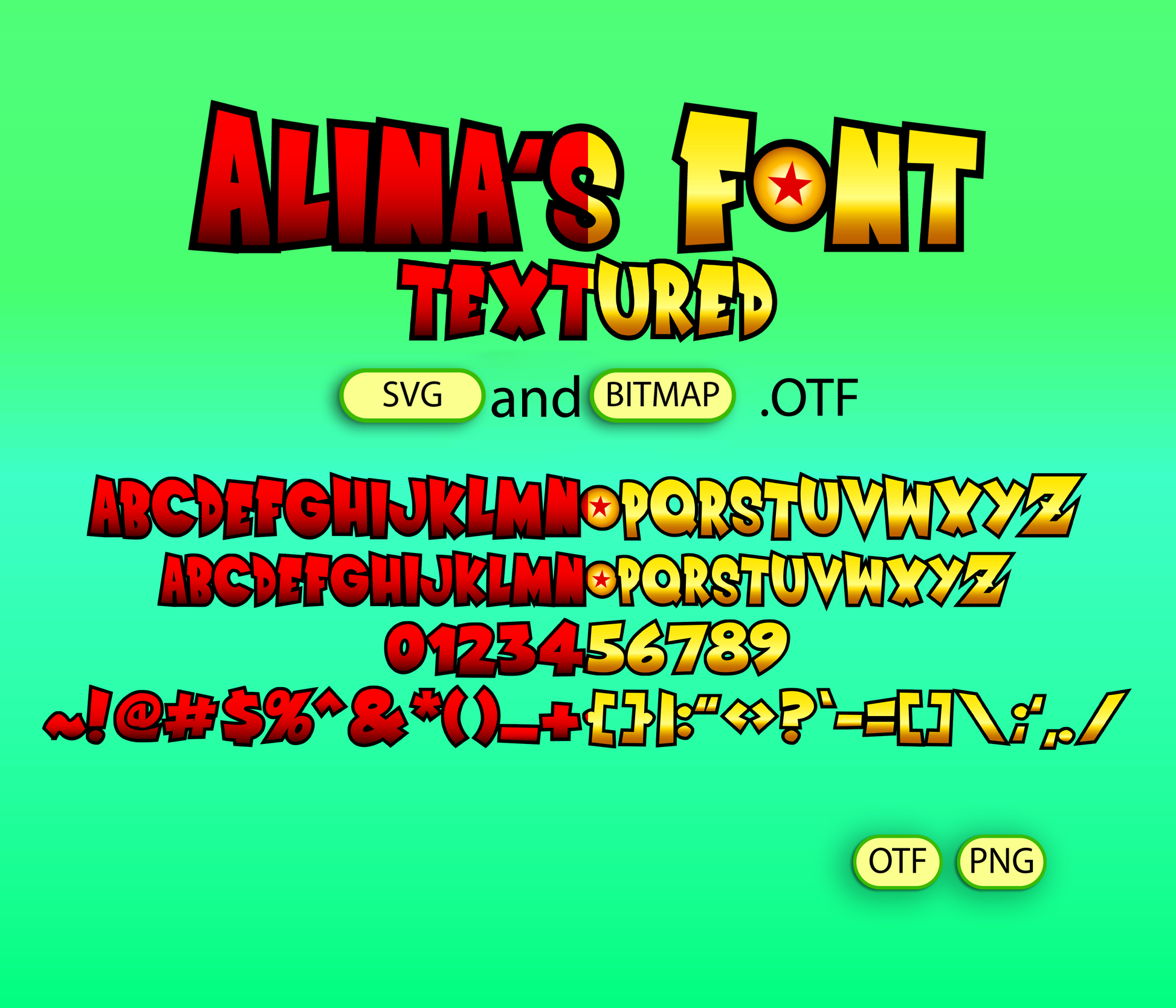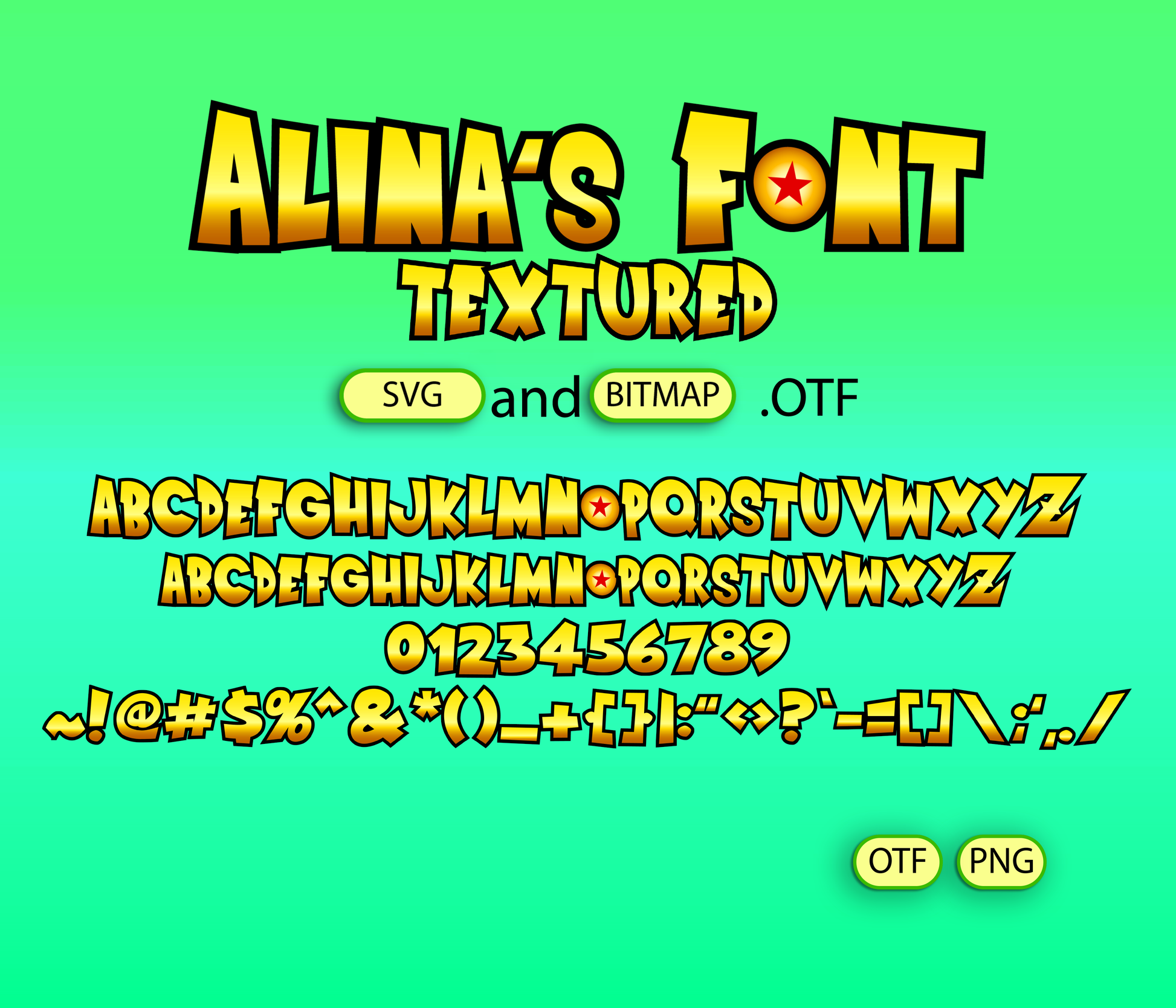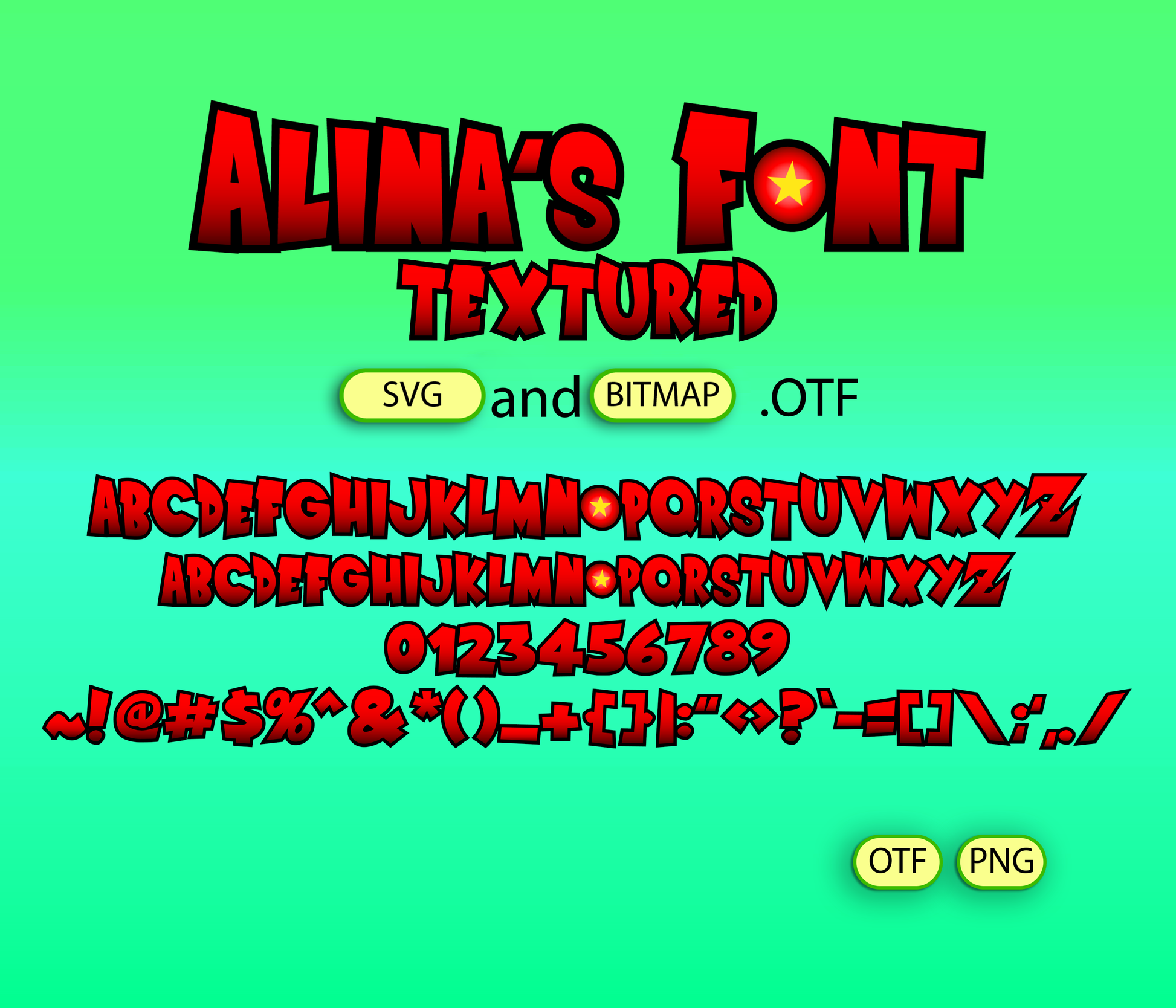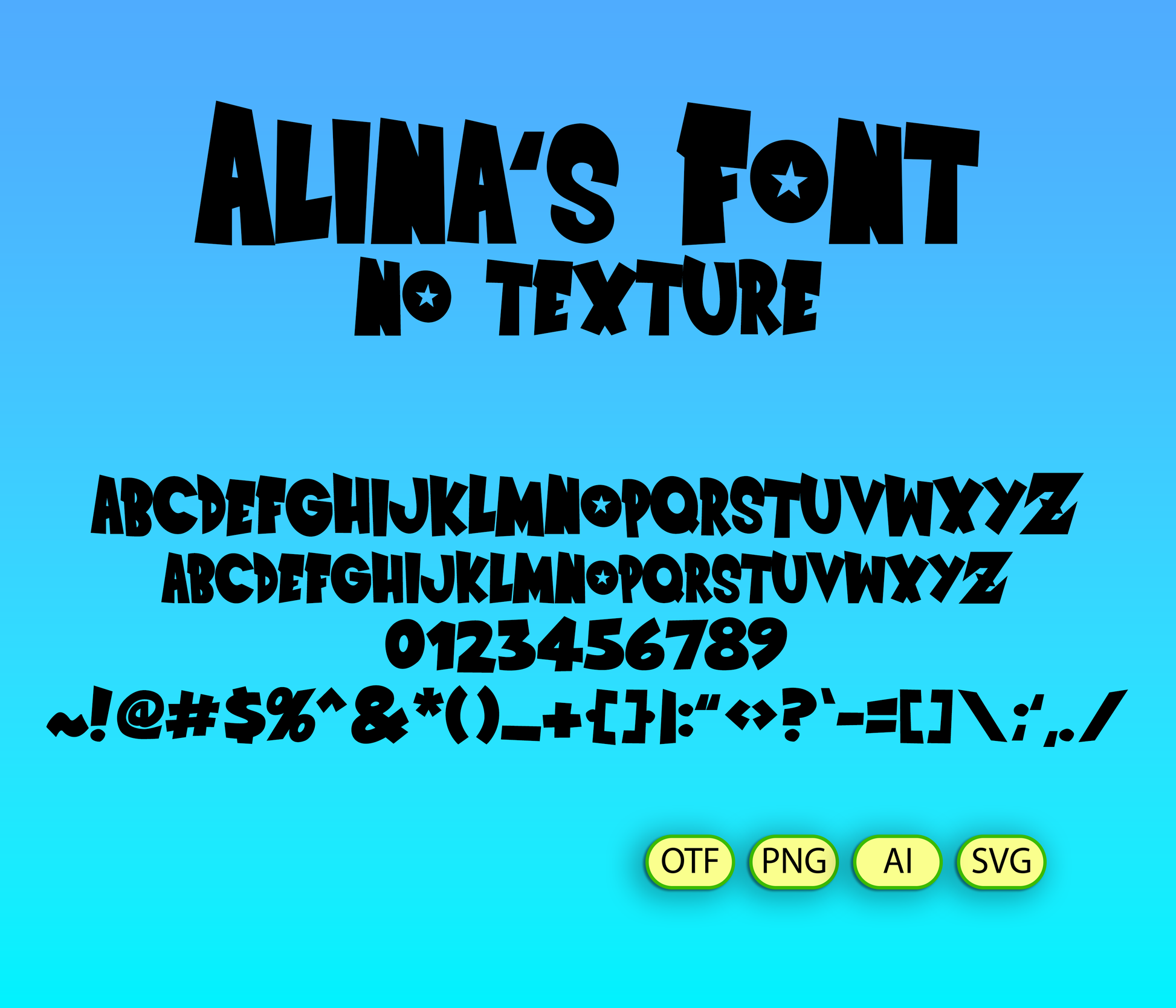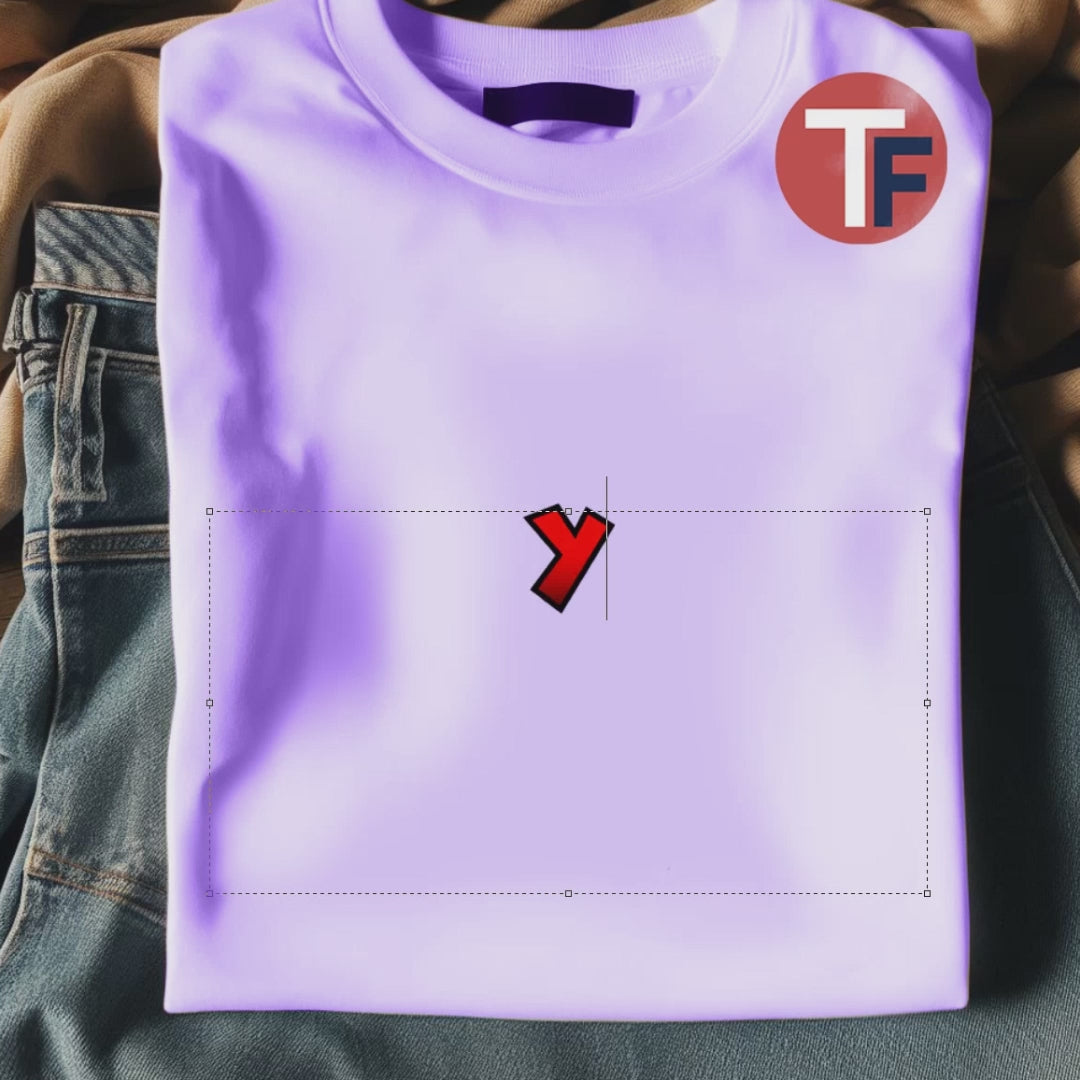
Epic Anime Font Textured Bundle
Unleash the Power with the Epic Anime-Inspired Font
Channel the energy and excitement of iconic anime series with our Epic Anime-inspired font. Perfect for fans, event organizers, and designers looking to infuse their projects with dynamic and bold spirit, this font brings the intense and vibrant aesthetics of epic anime adventures to your designs. Whether you're creating event invitations, designing themed merchandise, or crafting digital content, our Epic Anime font ensures your projects resonate with the action-packed and heroic essence of legendary anime heroes.
Our Epic Anime-inspired font features sharp, dynamic lines and bold, impactful characters that reflect the high-energy and powerful nature of the series. This versatile font is ideal for a variety of applications:
- Event Invitations: Perfect for creating striking invites for anime conventions, fan gatherings, or themed parties.
- Merchandise Design: Ideal for designing t-shirts, posters, and accessories that capture the essence of epic anime adventures.
- Digital Media: Enhance websites, blogs, and social media content with energetic headers and graphics.
- Educational Materials: Use in presentations, worksheets, and educational content focused on anime, storytelling, or martial arts.
- Personal Projects: Add a touch of anime power to scrapbooking, DIY crafts, or home decor inspired by the adventures of legendary anime heroes.
To ensure maximum usability and flexibility, our Epic Anime-inspired font includes both textured and non-textured variants. The non-textured version is particularly beneficial, ensuring compatibility with all types of software, including Canva. This feature allows users of all skill levels to seamlessly incorporate the font into their designs, enhancing accessibility and ease of use across various digital and print platforms.
Epic Anime Font Generator